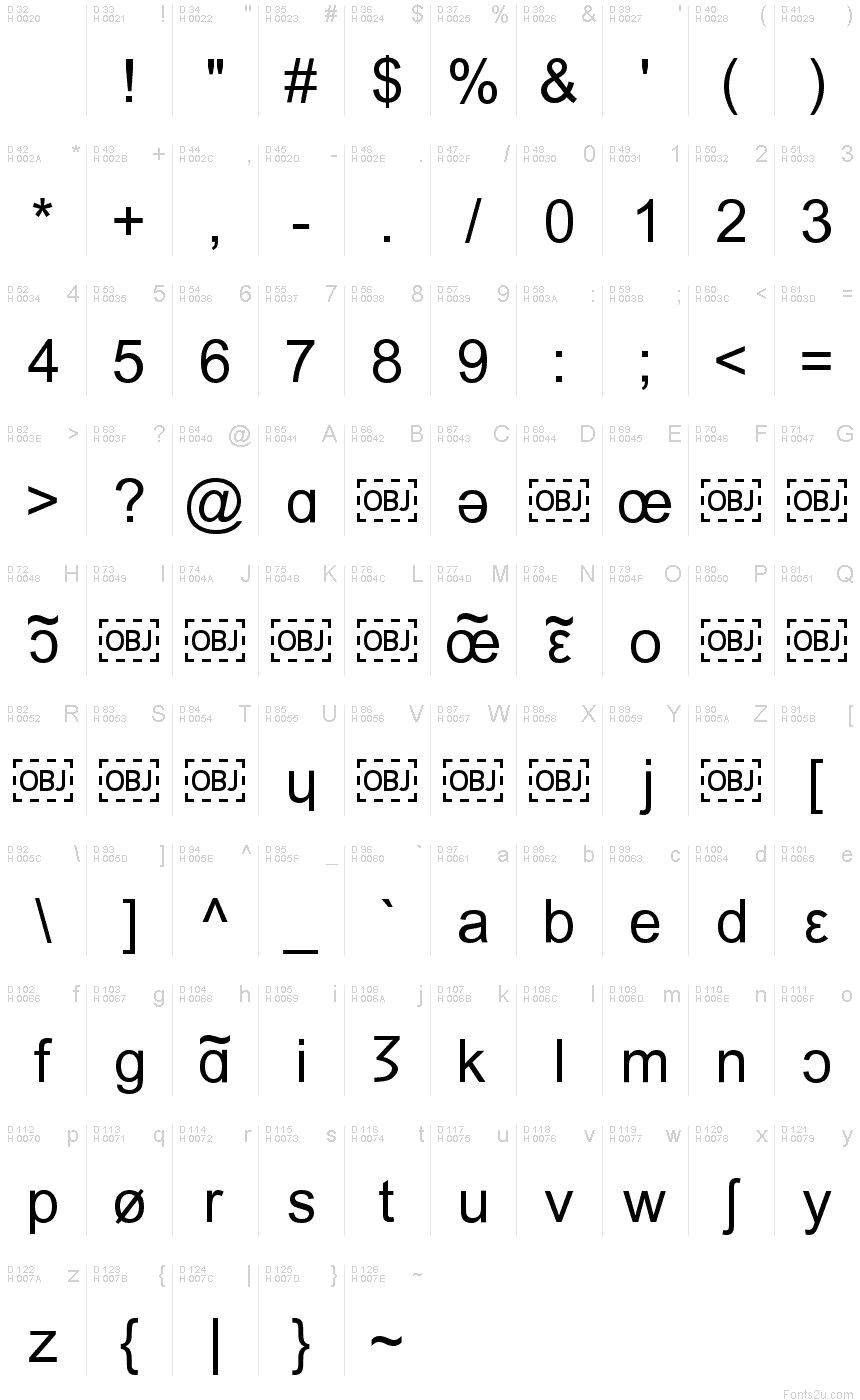
IPA Font
IPA Font font by IS Software is a free phonetic sans serif typeface made for working with the full IPA symbol set. Its clean, even strokes and generous spacing keep complex transcriptions readable, while the sturdy shapes hold up on screens, printouts, and projection slides alike. Diacritics and special characters sit neatly in line, so dense linguistic data stays orderly instead of turning into visual noise.
Using IPA Font, you can confidently set academic papers, phonetics textbooks, classroom handouts, language-learning apps, research posters, and linguistic maps. This free font shines when used larger than body size for examples and charts, paired with a neutral text serif for running copy to keep the overall page clear and professional.